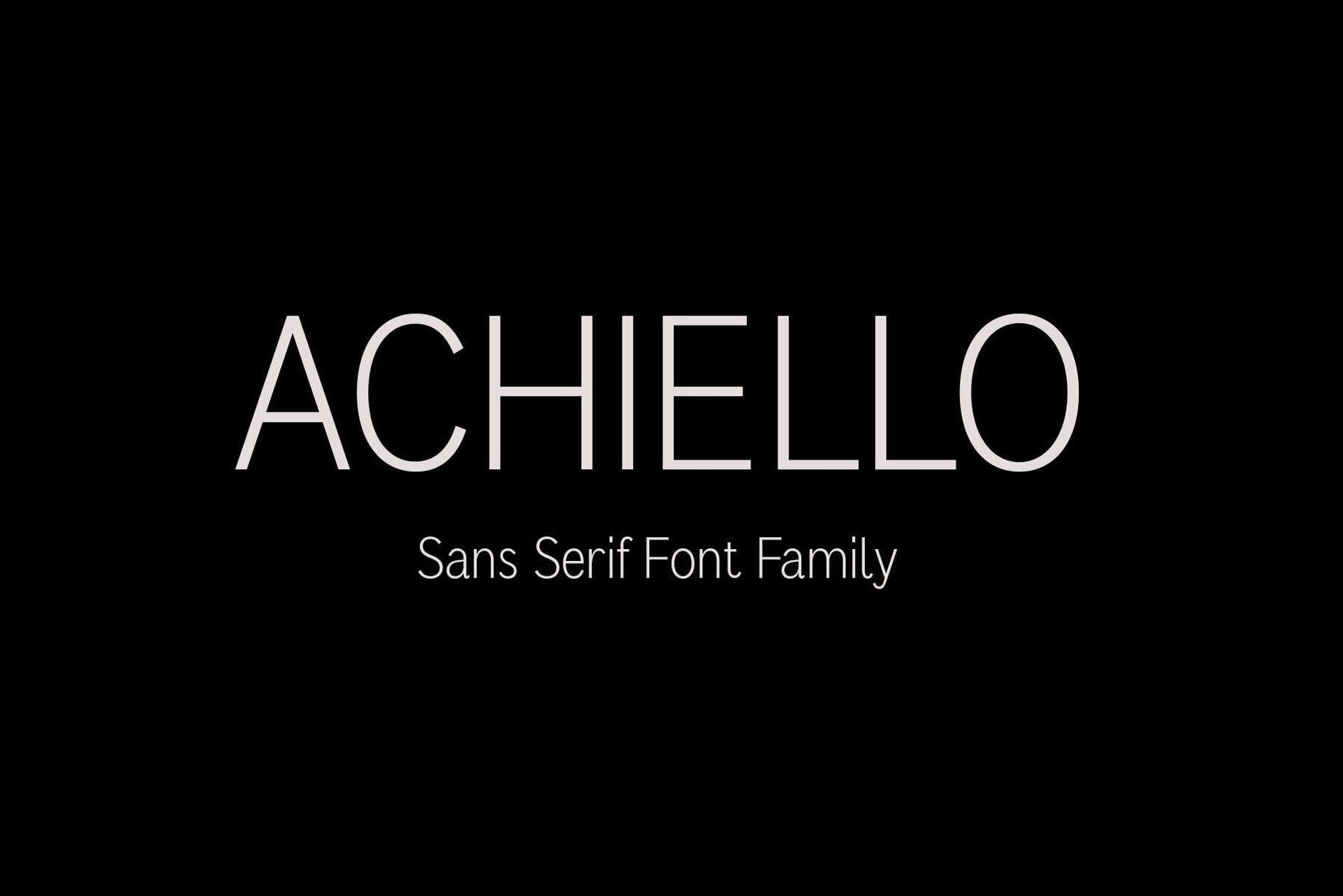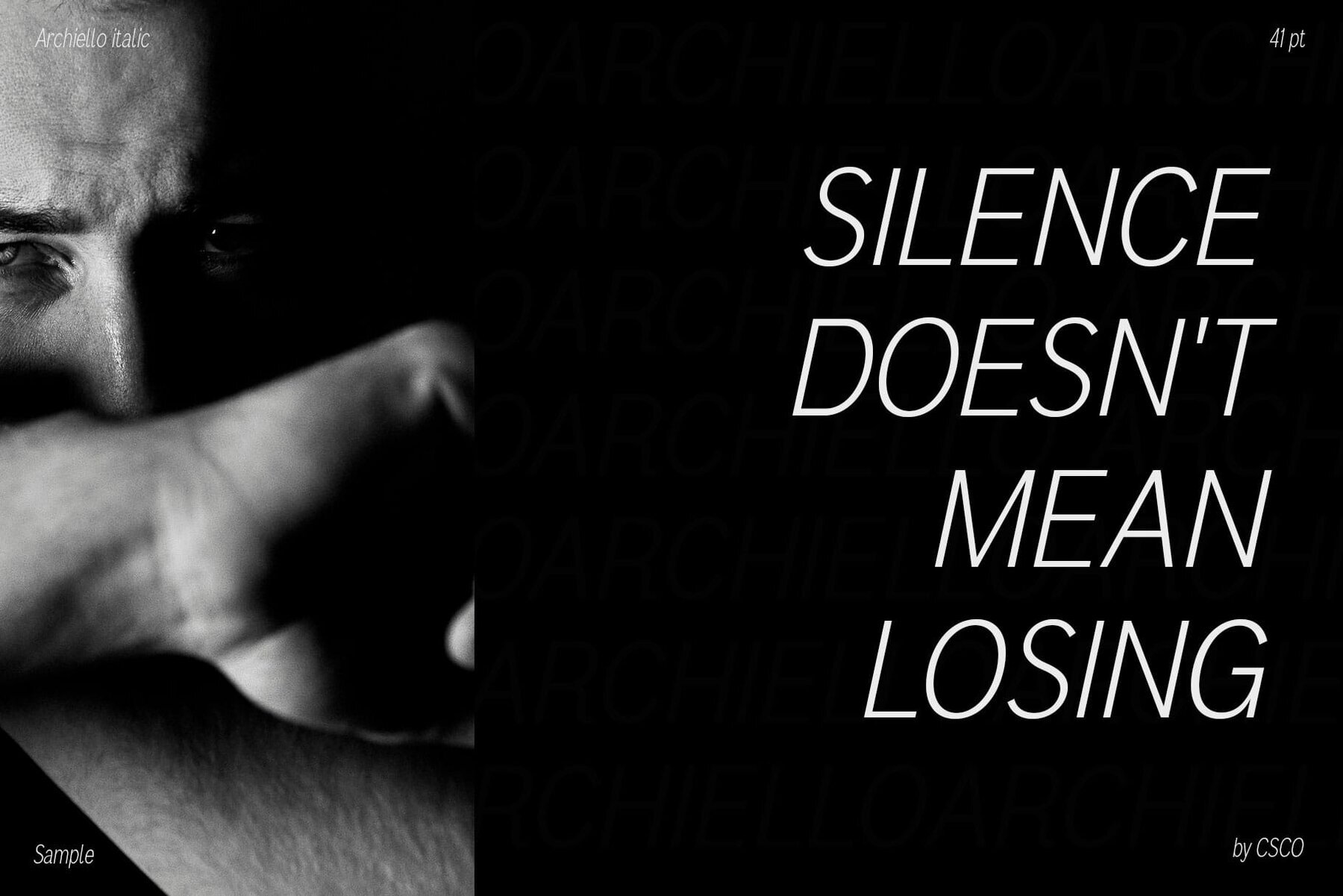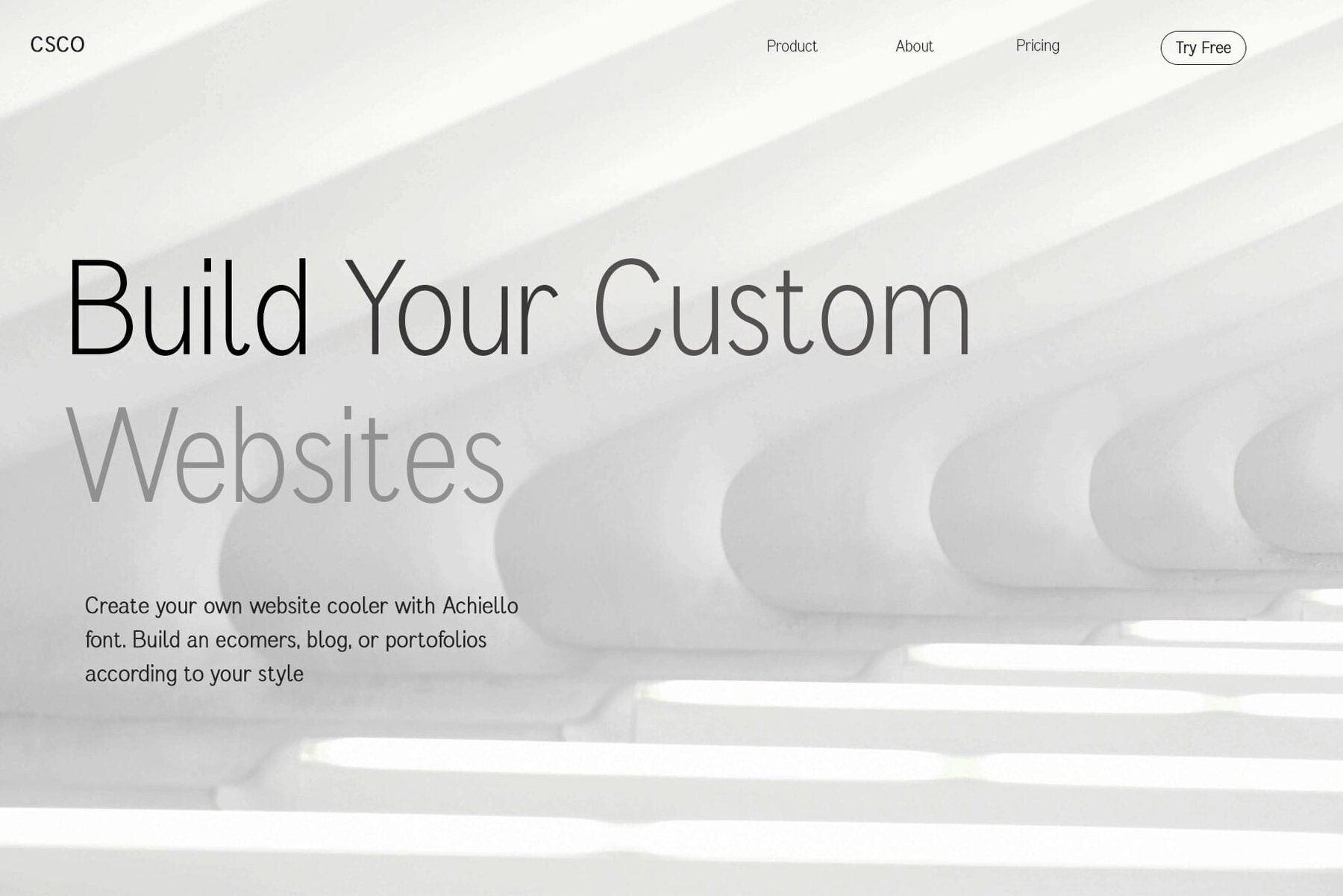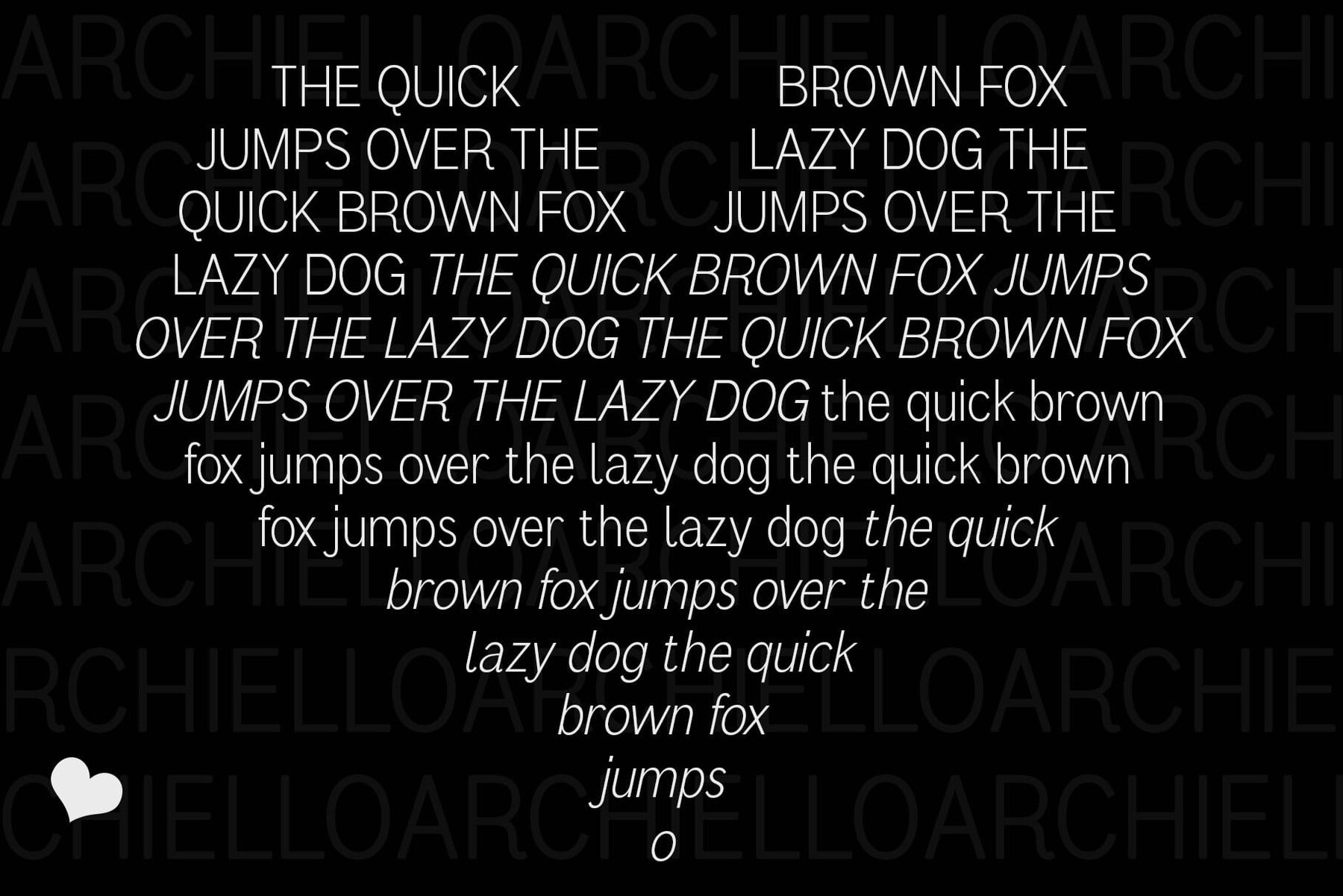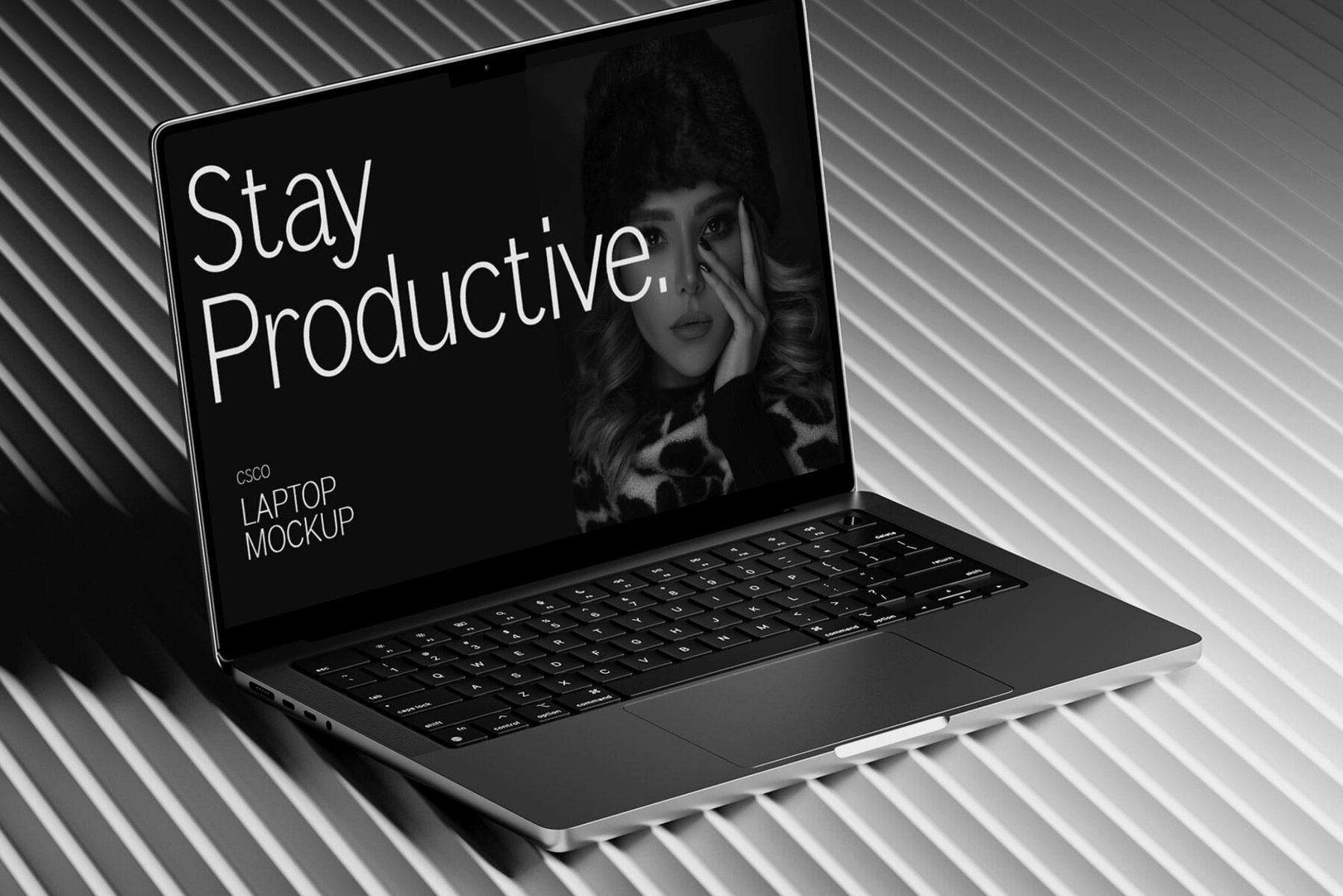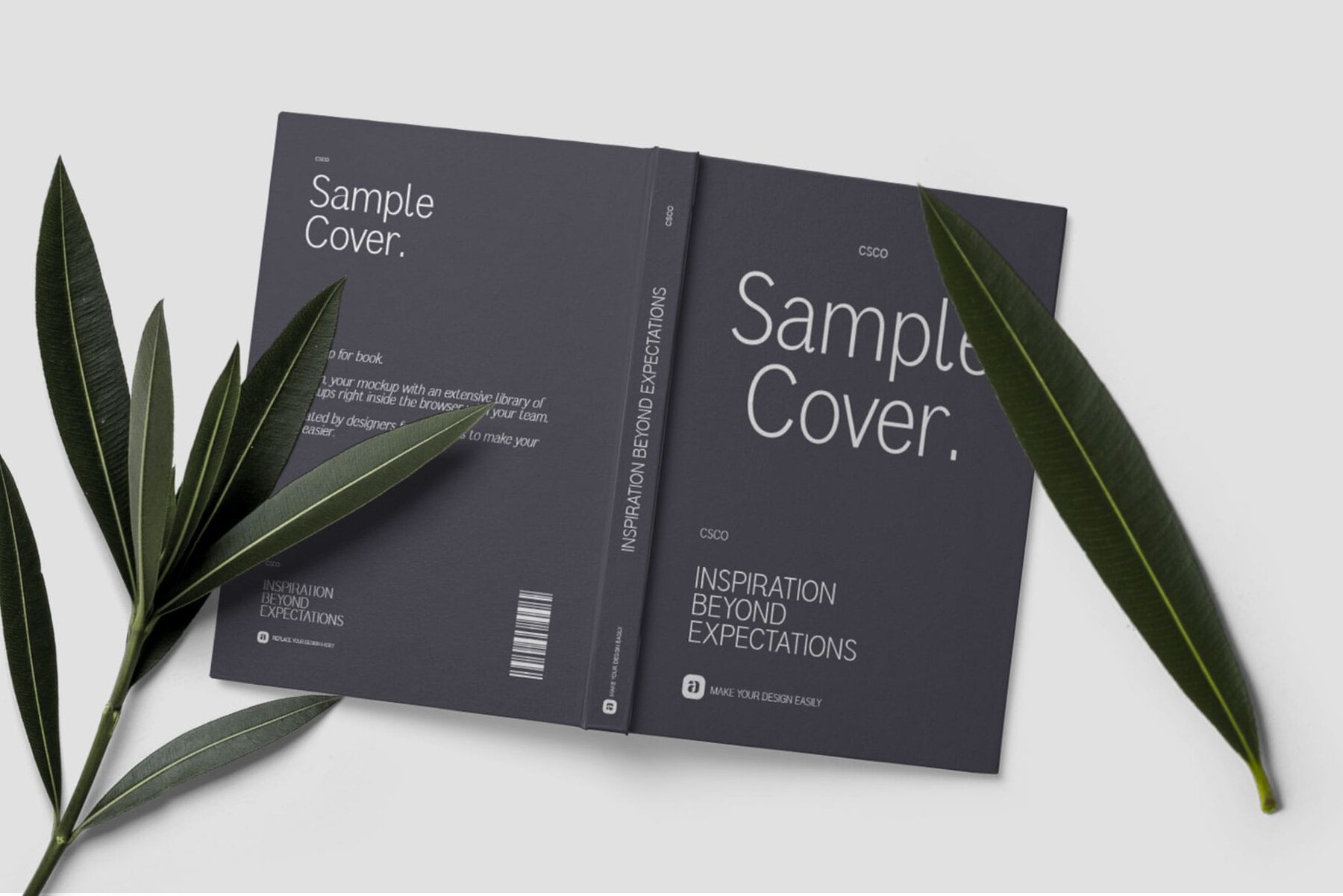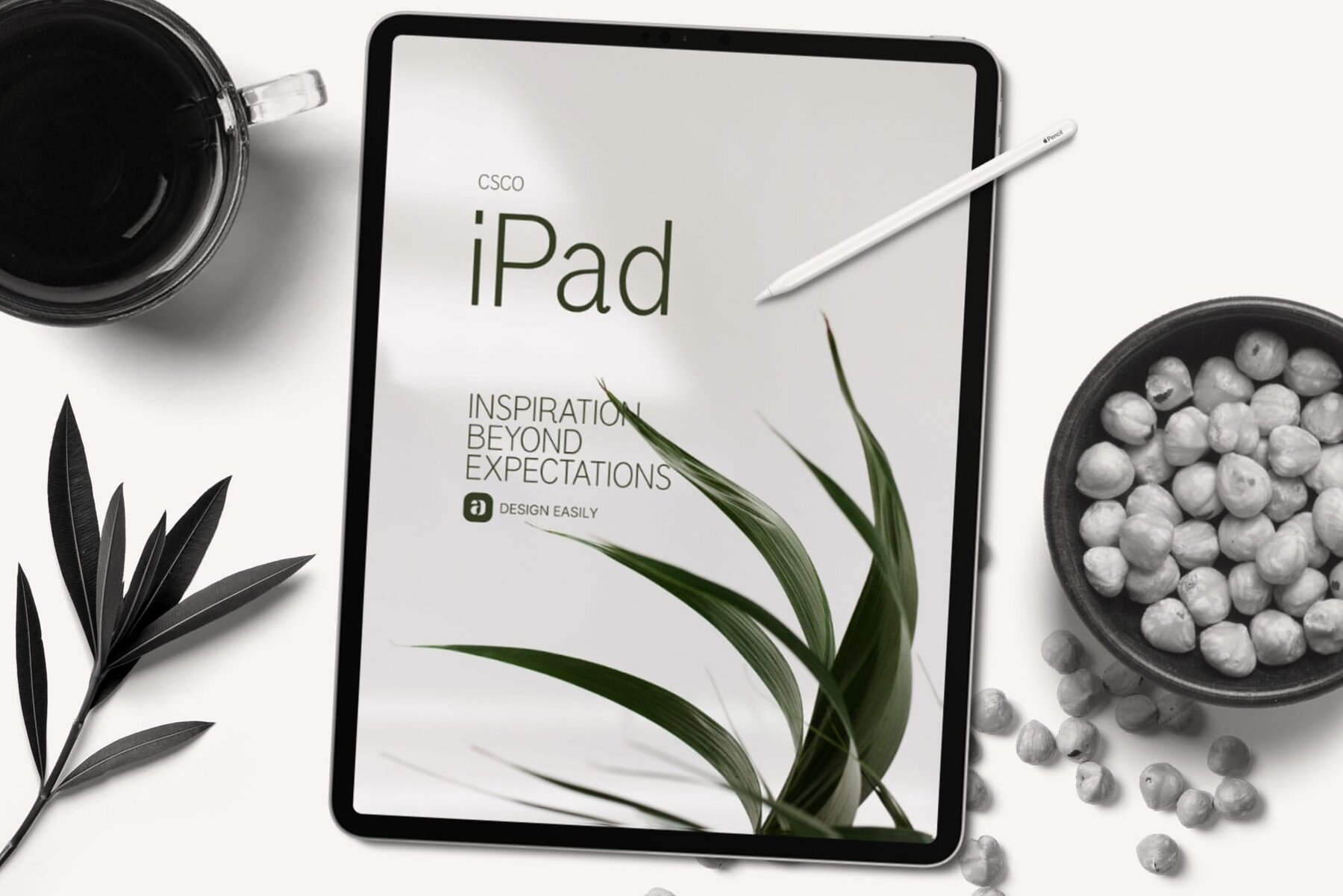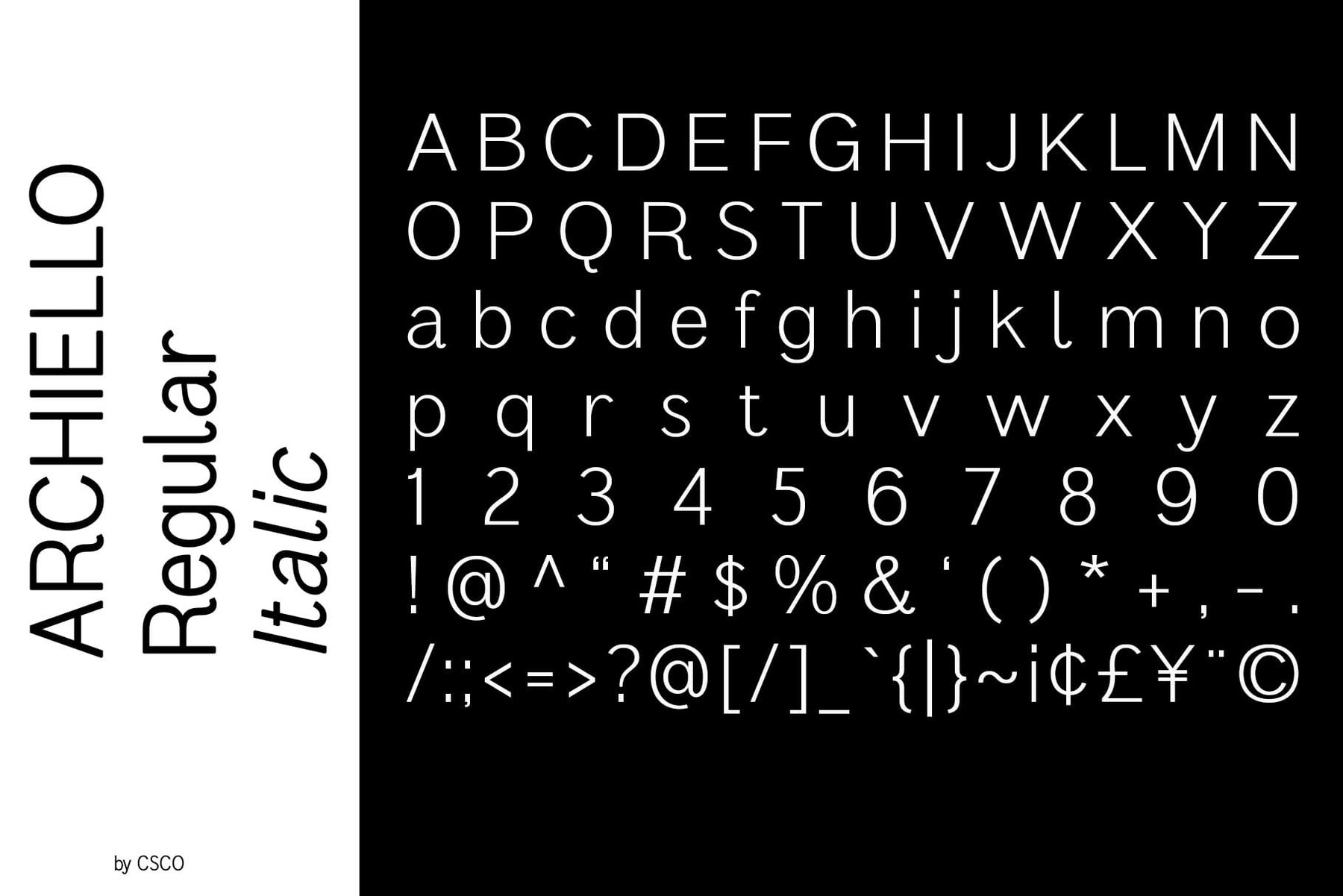
Achiello Font
Achiello masterfully captures the essence of humanity through a unique humanist sans-serif style, combining boldness with an inviting touch that suits a wide range of design applications. No specialized software required for usage. For inquiries or assistance, please feel free to contact us. We appreciate your support in enhancing your creative projects!Achiello: A Humanist Sans Serif Marvel